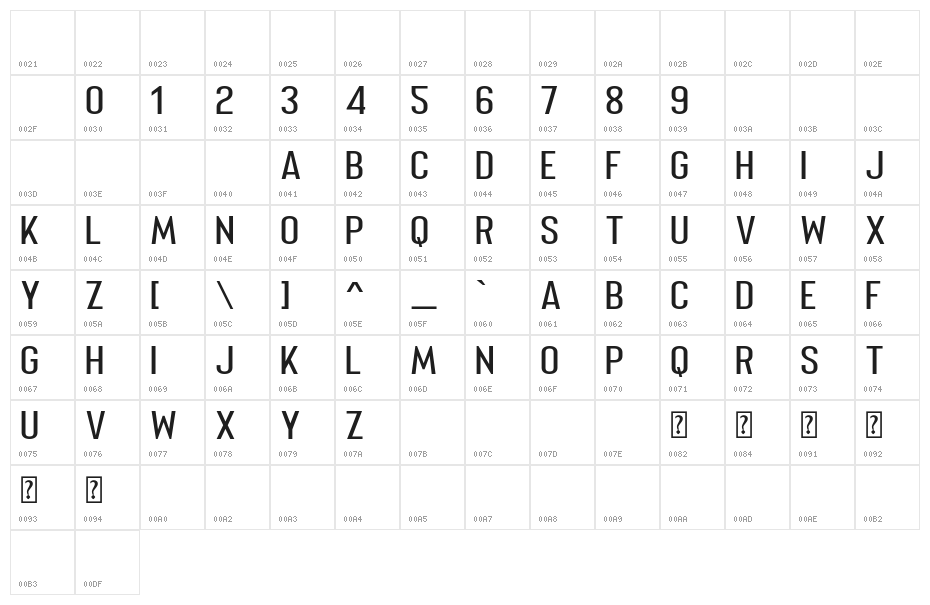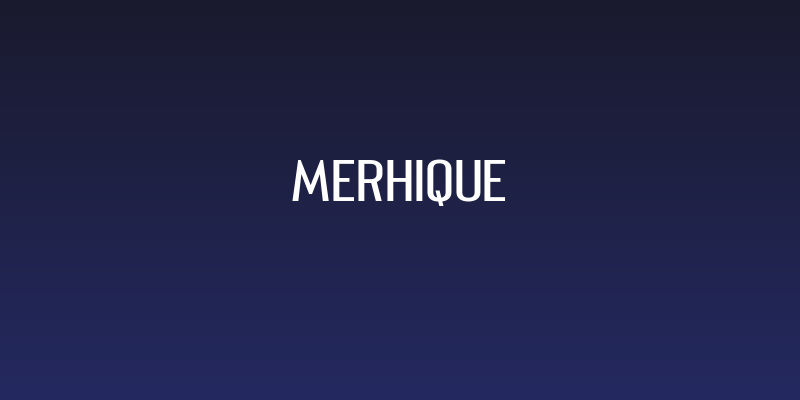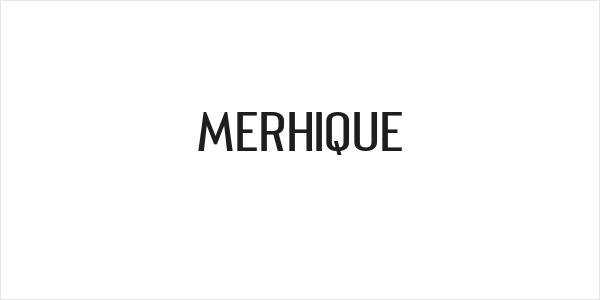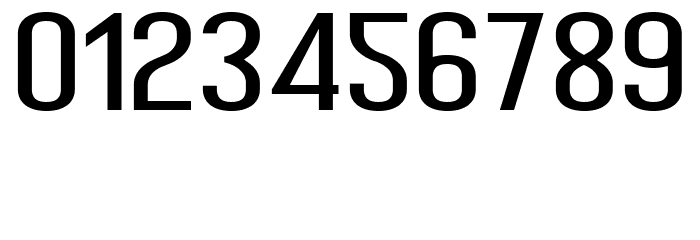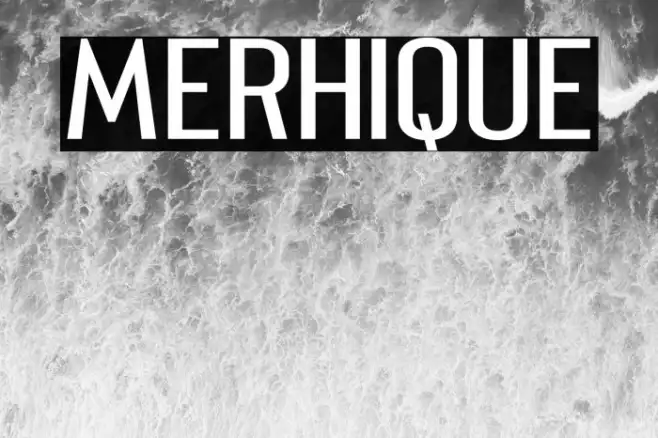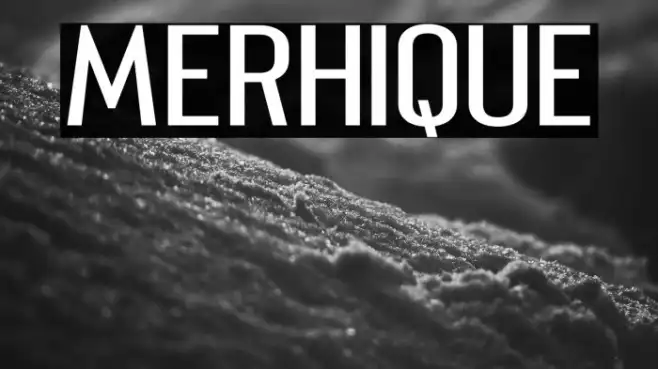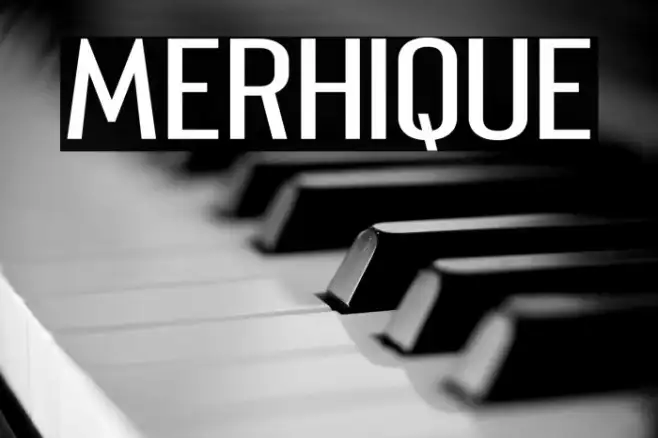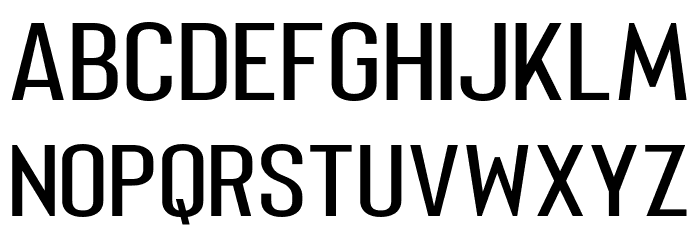
Merhique Font
Merhique Description
This font features a clean and modern sans-serif style with uniform stroke widths, giving it a sleek and contemporary appearance. The characters are tall and slightly condensed, which enhances readability while maintaining a stylish look. The uppercase and lowercase letters are well-proportioned, and the numerals are clear and distinct, making them suitable for a variety of applications. The overall design is minimalistic, with no unnecessary embellishments, allowing for versatile use in both digital and print media.